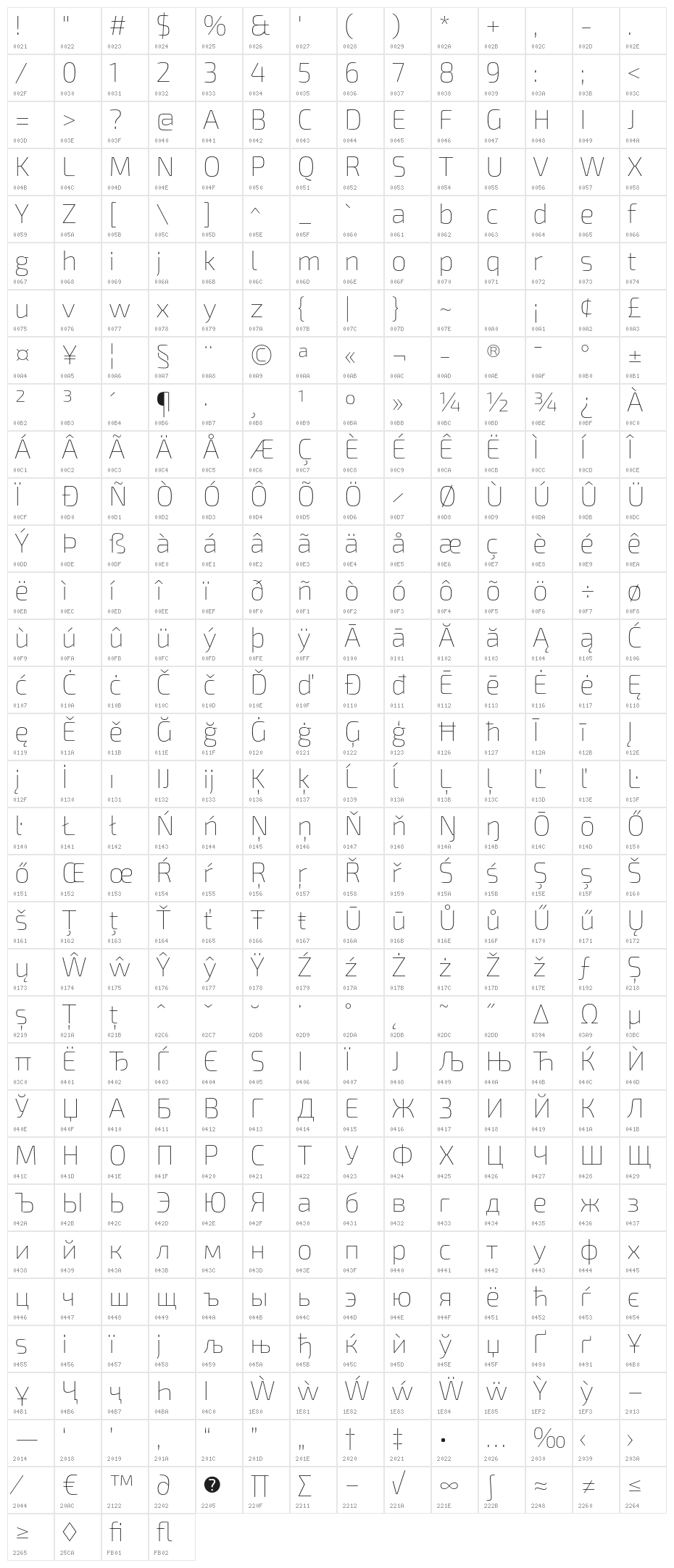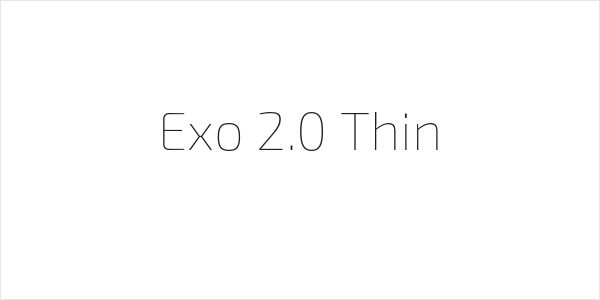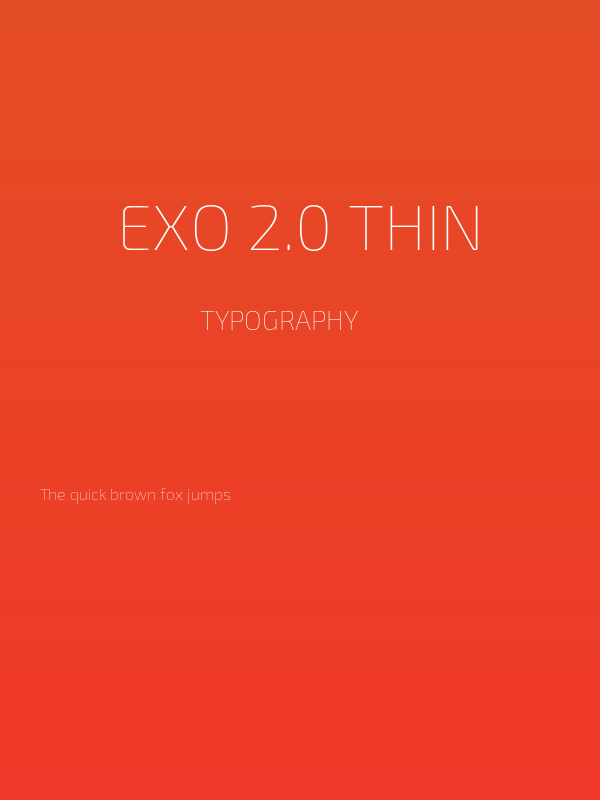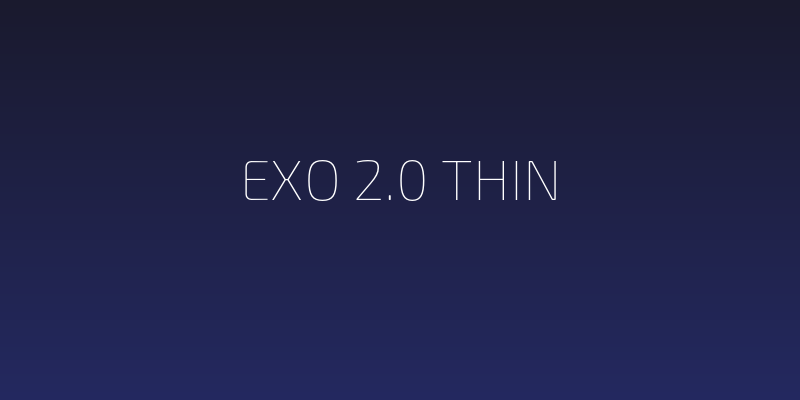
Exo 2.0 Thin Font
Exo 2.0 Thin Description
This font features a sleek and modern design with thin, clean lines that give it a minimalist and contemporary appearance. The characters are well-proportioned with a geometric influence, making it highly legible and versatile. The uppercase and lowercase letters maintain a consistent style, while the numerals and special characters complement the overall aesthetic. Its simplicity and elegance make it suitable for a wide range of applications, from digital interfaces to print media.
| Proposed Projects | Ideal for tech branding, modern web design, app interfaces, and minimalist print layouts. |